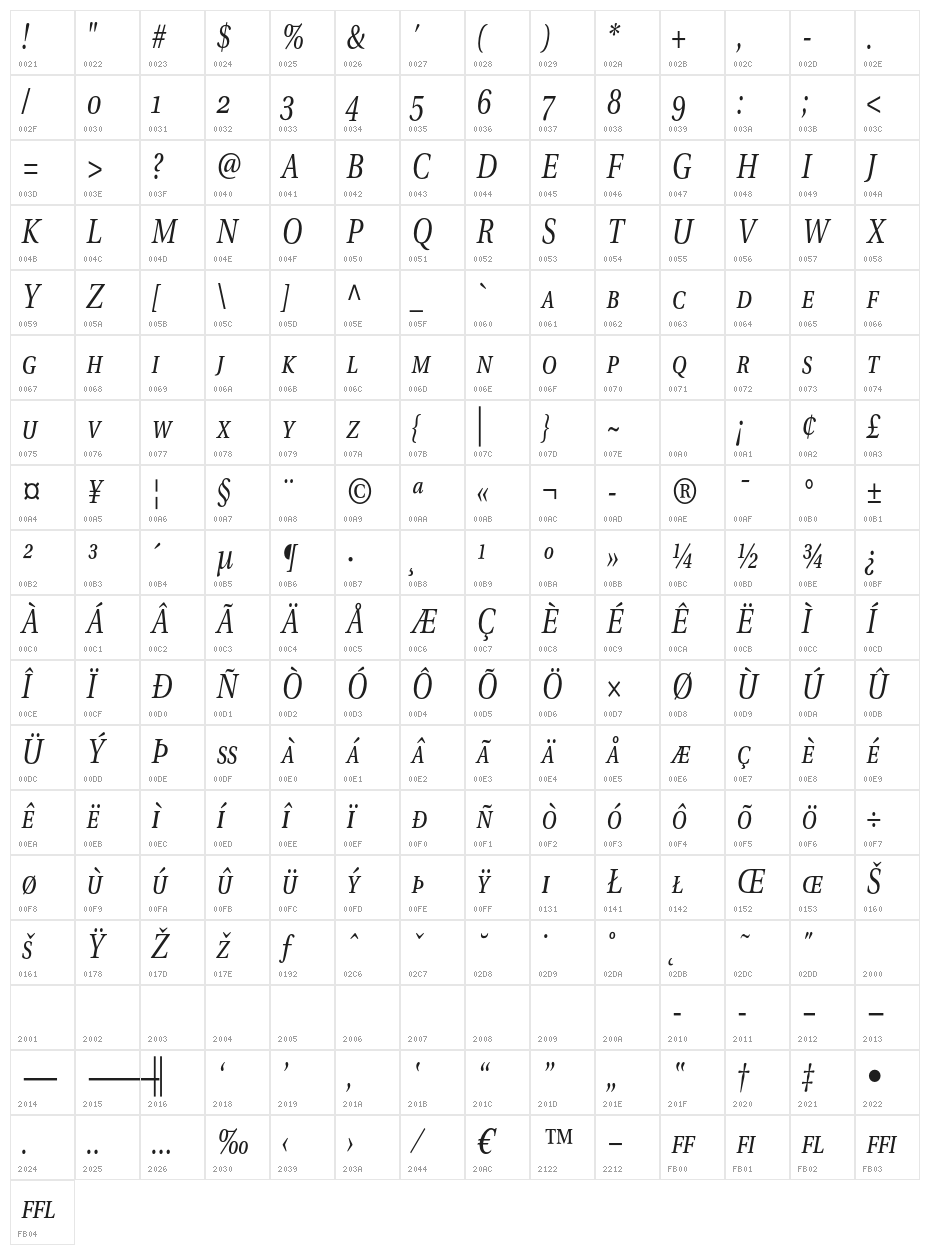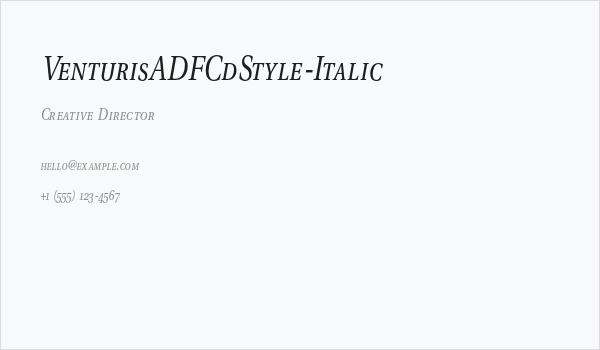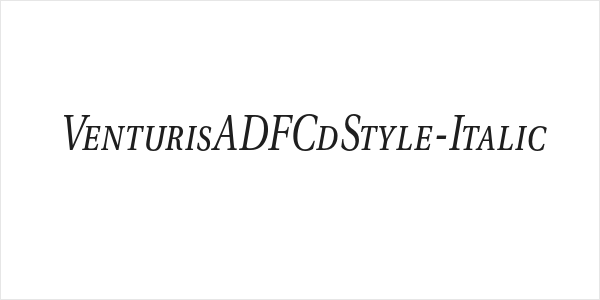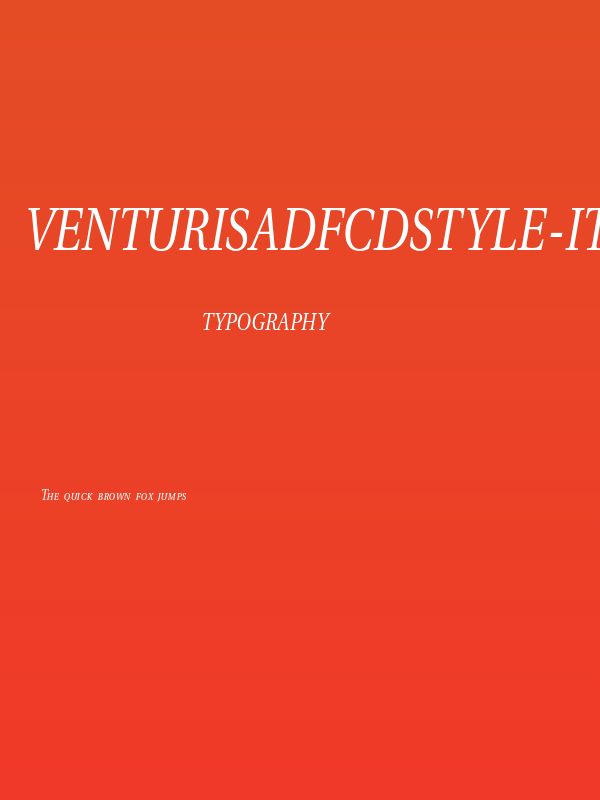
VenturisADFCdStyle-Italic Font
VenturisADFCdStyle-Italic Description
This elegant typeface features a classic serif design with a distinct italic slant, giving it a sophisticated and refined appearance. The characters are well-proportioned, with a moderate contrast between thick and thin strokes, enhancing readability while maintaining an artistic flair. The uppercase letters exhibit a traditional formality, while the lowercase letters add a touch of fluidity and grace. Numerals are clear and balanced, making them suitable for both text and display purposes. The special characters are thoughtfully designed, ensuring consistency across the entire character set. This font is ideal for projects that require a touch of elegance and tradition, such as formal invitations, editorial design, and branding for luxury products.
| Proposed Projects | Ideal for formal invitations, editorial design, luxury branding, and elegant print materials. |